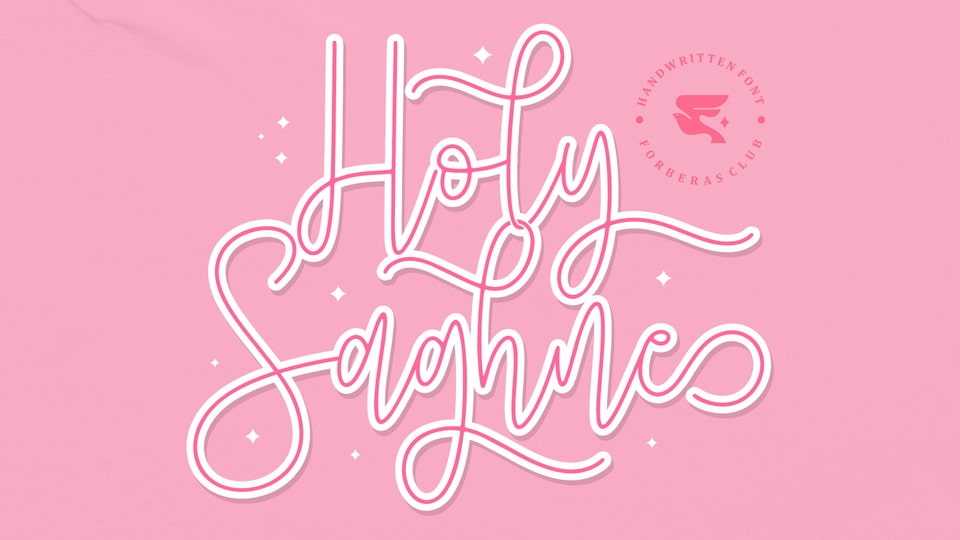
Download Holy Saghne font, a fancy and elegant handwritten typeface crafted to impress your audience. Make your projects dance with this elegant and wonderful font wherever you use it.